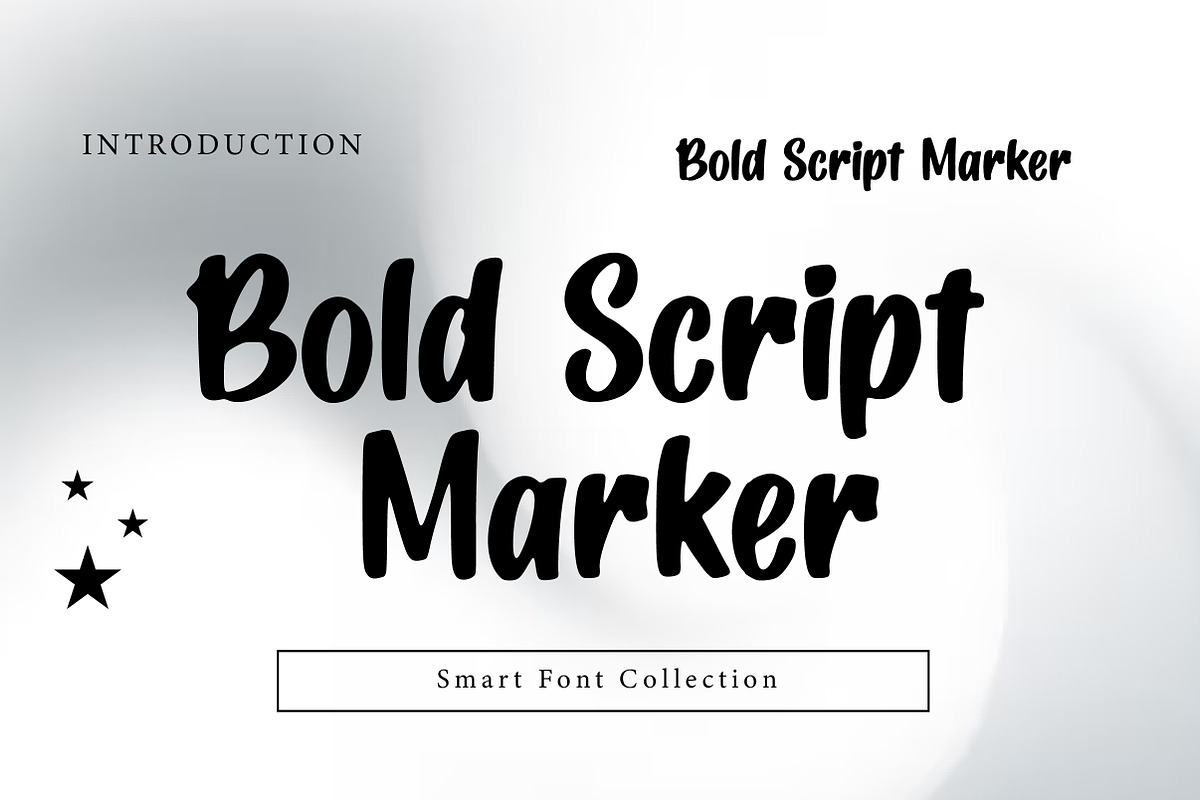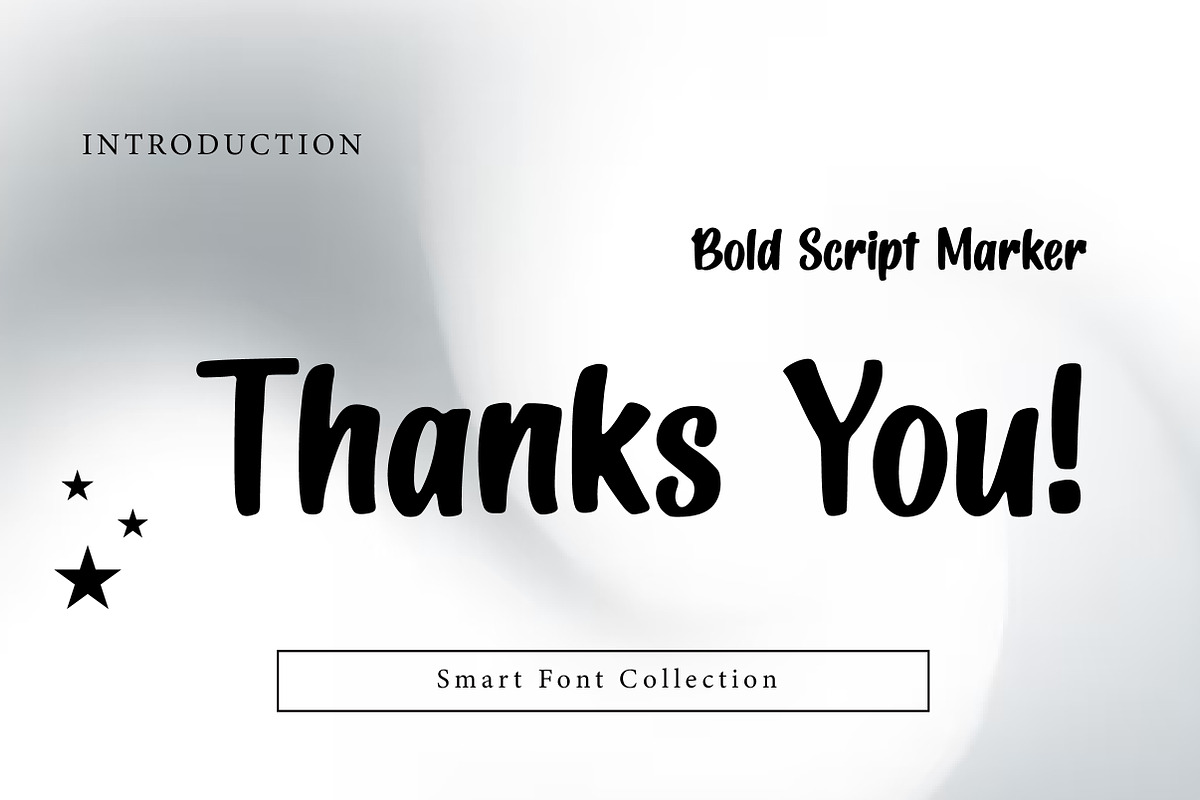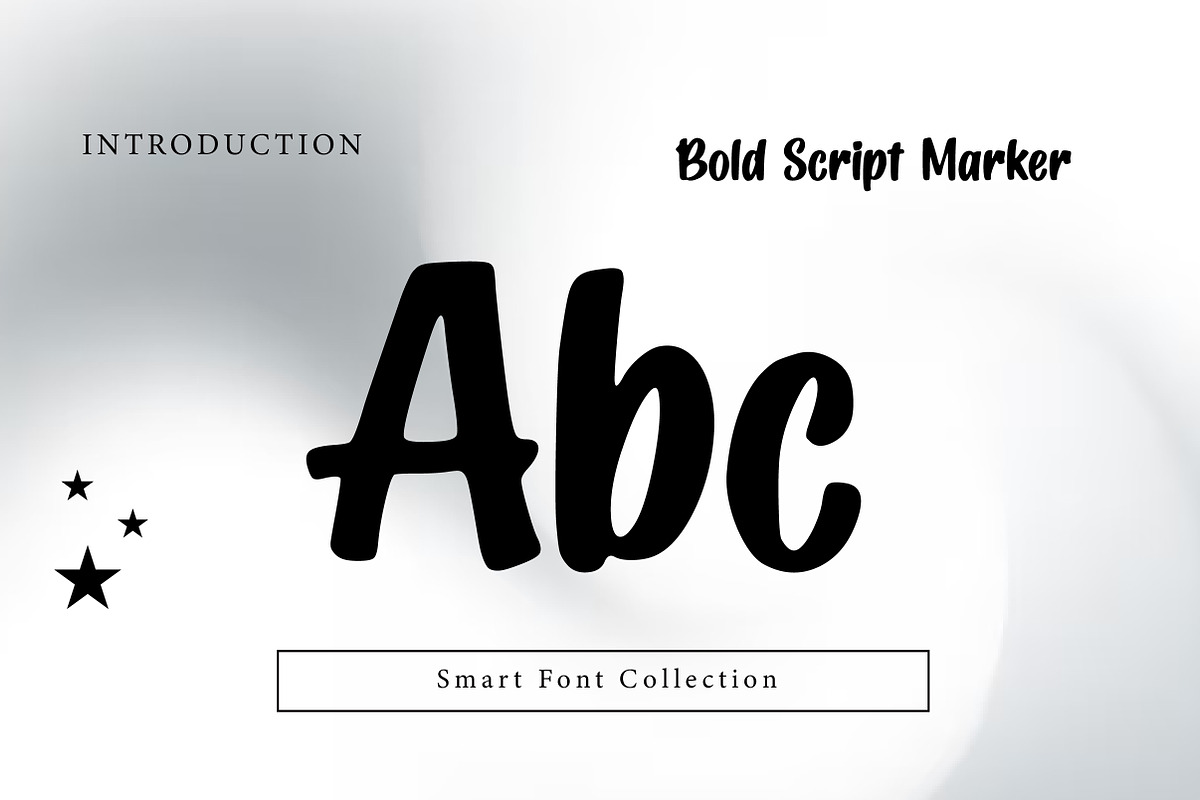
Bold Script Marker
Bold Script Marker is a thick, energetic handwritten marker script font with smooth curves and confident strokes. It combines a casual brush-pen flow with bold weight, making it perfect for logos, branding, posters, social media graphics, quotes, packaging, apparel, and modern headline typography. Bold Script Marker feels expressive, friendly, and highly readable while keeping a handcrafted vibe.